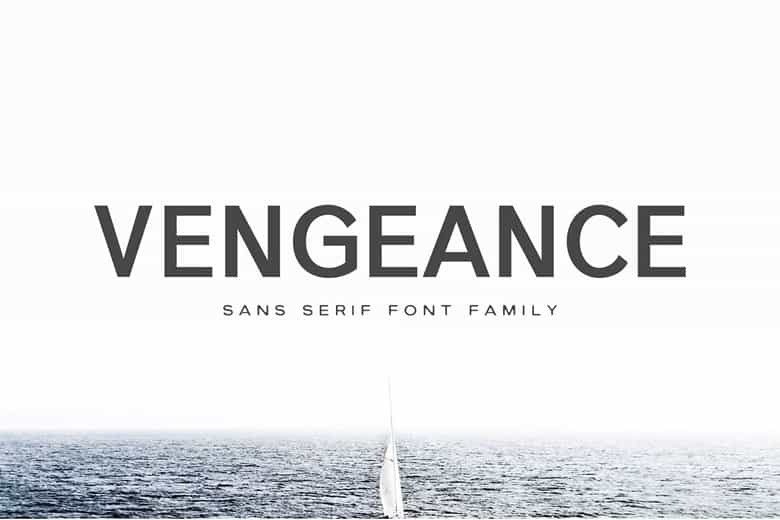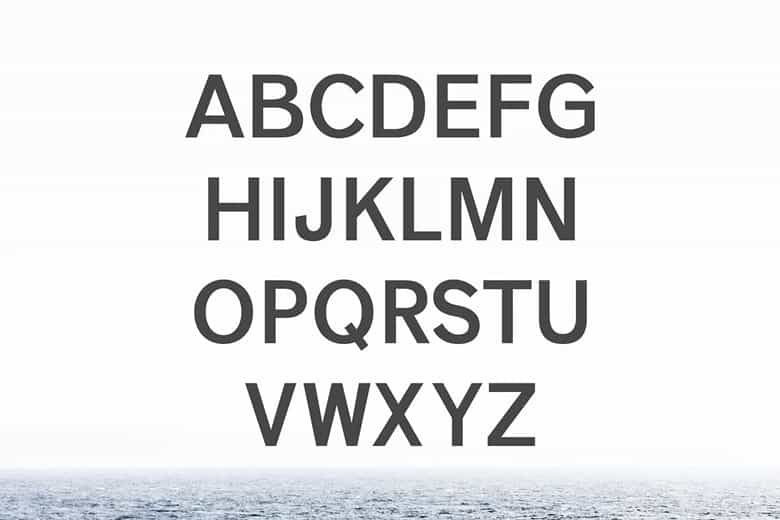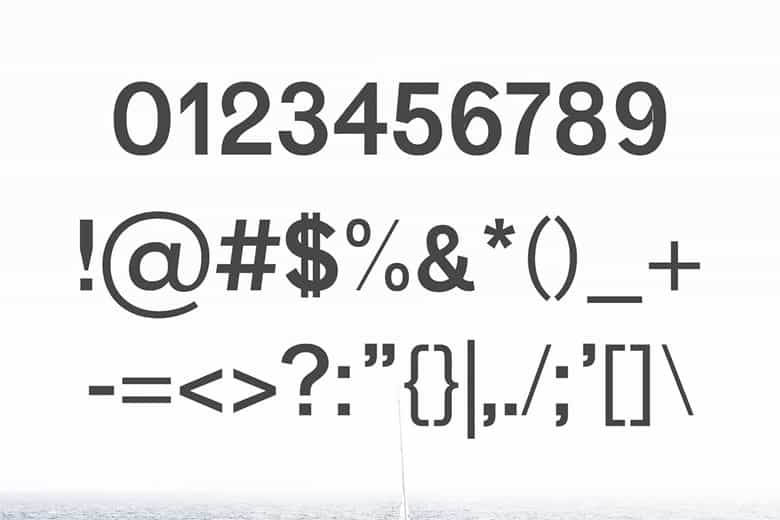
Discover Vengeance Font, part of the Sans Serif collection—a versatile and unique font perfect for adding a personal touch to your projects. Download it for free and enjoy crafting designs with style, from invitations to social media posts. This font is available exclusively for personal use, giving you the freedom to create without limits. Unlock your creativity with Vengeance Font today!
Vengeance is a list of seven types of fonts that come in the sans serif category. It contains all alphabet containing Latin World characters for easy modeling including the Non-English characters. This is a great and exquisite sans serif font in our store, so with its help, each word will look individual and exquisite!